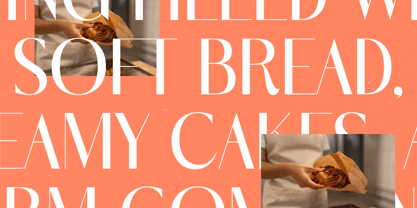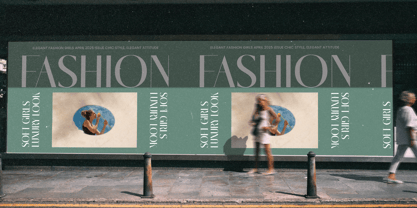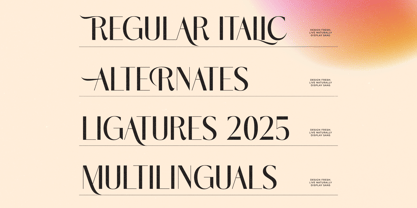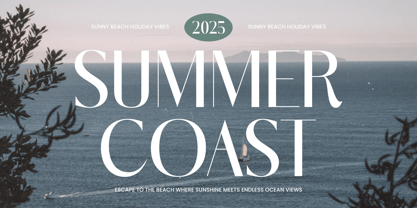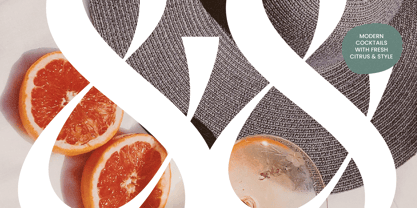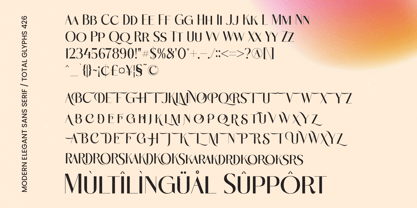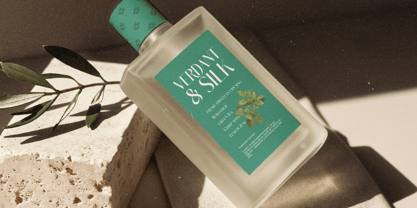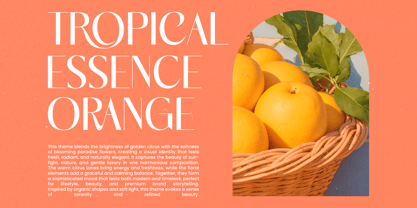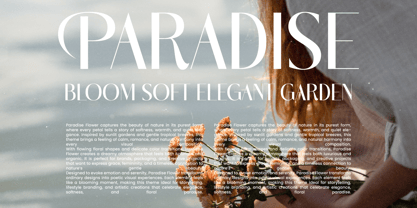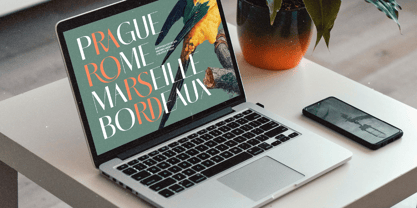
Marogis
von Timelesstype Studio
Die Schriftfamilie Marogis wurde von Heru Utama Putra entworfen und von Timelesstype Studio veröffentlicht. Marogis enthält 2 Stile und Familienpaketoptionen. Mehr über diese Familie
Marogis is a modern elegant sans-serif with high-contrast strokes, refined curves, and a luxurious editorial presence. Designed for premium branding, fashion magazines, beauty packaging, and contemporary visual identities, this typeface blends sharp geometry with graceful, sculpted details. Featuring 21 ligatures, 72 alternates, and a total of 426 glyphs, Marogis offers exceptional versatility for designers who want a clean yet expressive modern serif-sans hybrid aesthetic.